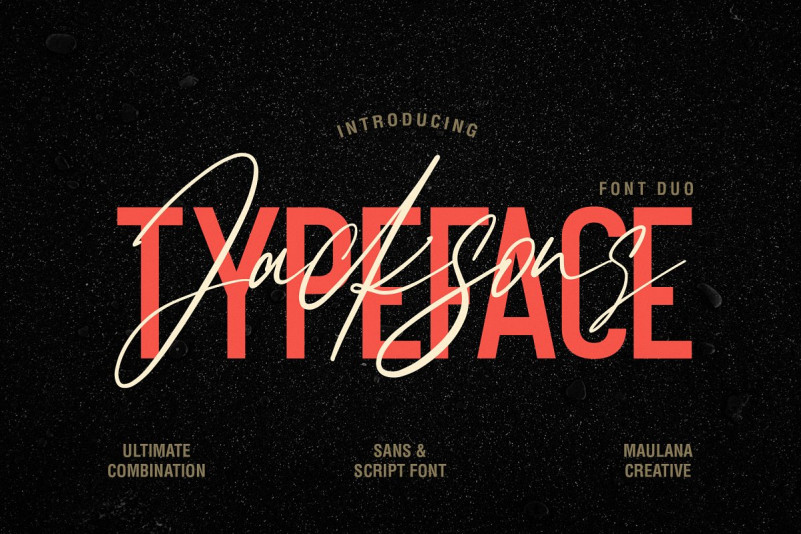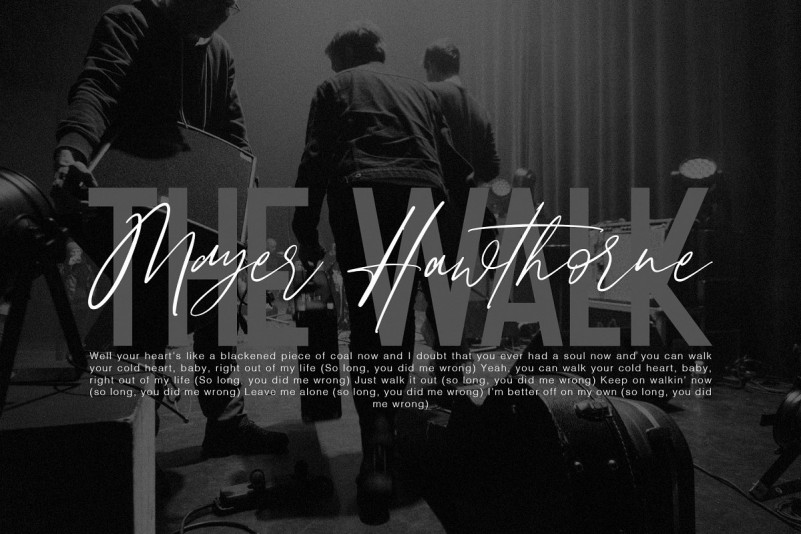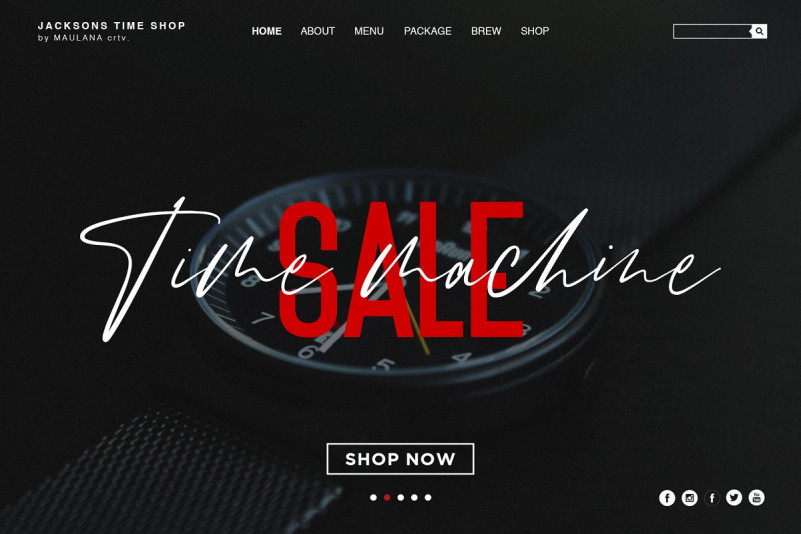
Jacksons Font
Give your designs an authentic handcrafted feel. “Jacksons” is perfectly suited to signature, stationery, logo, typography quotes, magazine or book cover, website header, clothing, branding, packaging design and more.